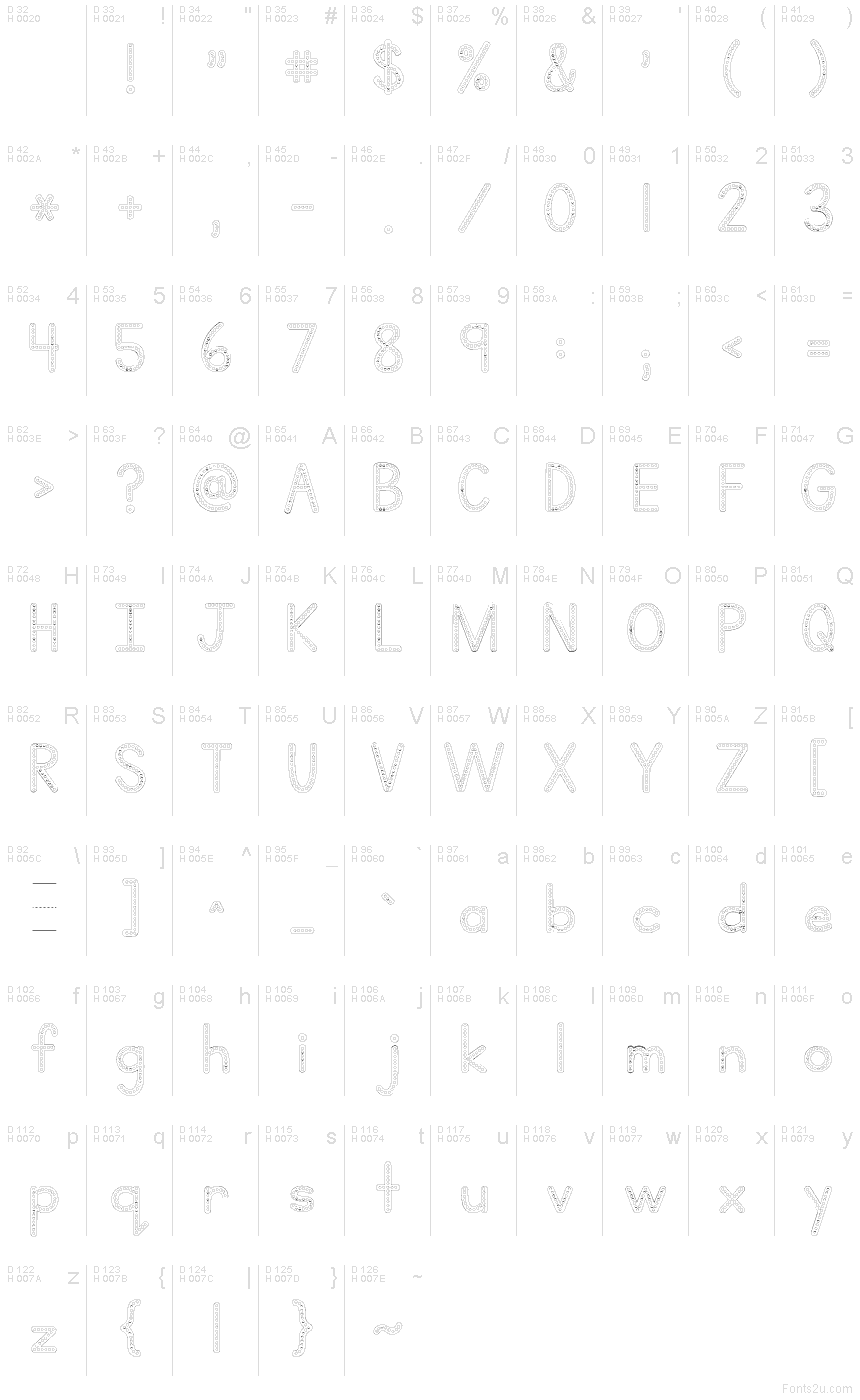
KG Teacher Created Outline Dot
KG Teacher Created Outline Dot font by Kimberly Geswein is a free educational dotted outline typeface. Part of the KG Teacher Created family, it lays out soft, rounded letterforms with evenly spaced dots and generous breathing room, so little hands can trace without crowding. The strokes feel friendly and steady—crisp enough to guide, open enough to color or cut out—making classroom prep fast and tidy.
Using KG Teacher Created Outline Dot, you can create handwriting worksheets, tracing sheets, bulletin board headers, flashcards, activity packets, and coloring-page titles. The consistent rhythm keeps lines readable at big sizes, and the open shapes invite markers, crayons, or bingo daubers. This free font pairs naturally with a clean rounded sans for instructions; set body copy smaller and keep the dotted letters large for tracing lines that actually help.